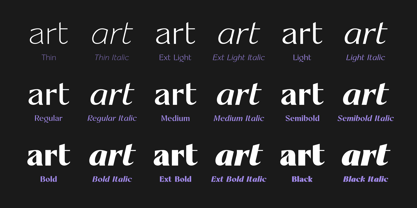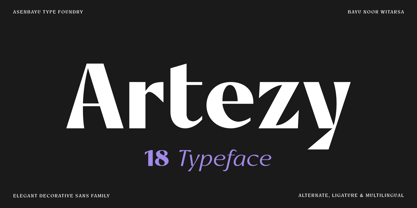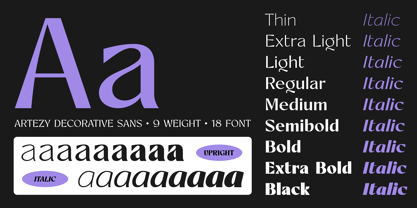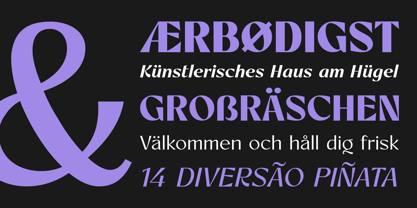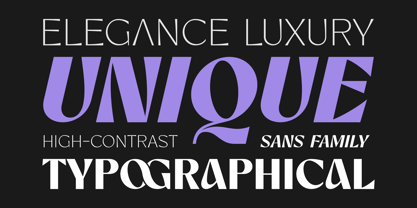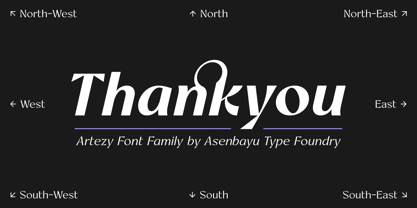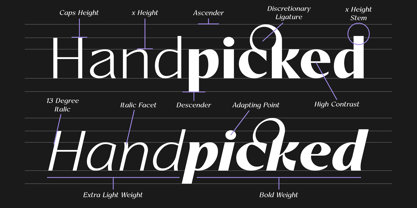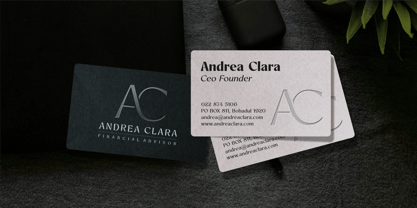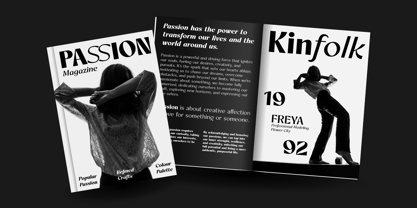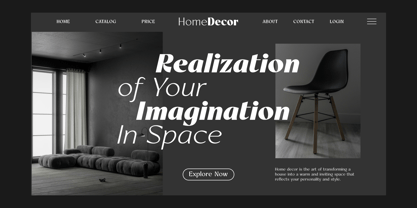
Artezy- duplicate
by Asenbayu
The Artezy- duplicate Font Family was designed by Bayu Noor Witarsa and published by Asenbayu. Artezy- duplicate contains 13 styles and family package options.
Artezy is an elegant decorative sans serif font family consisting of 18 fonts. Inspired by "Art" and "Easy", these fonts combine the refinement of luxurious aesthetics and modern lines that convey a sense of high-end quality. Characterized by high contrast, each letter creates visual interest and emphasizes. These fonts are perfect for luxury branding, desirable logo designs, magazine, posters, packaging labels, websites, and more.
Artezy font features: 18 Fonts, 9 Weights (Thin to Black), standard glyph, stylistic alternates, stylistic ligatures, symbol, punctuation and multiple languages supported.